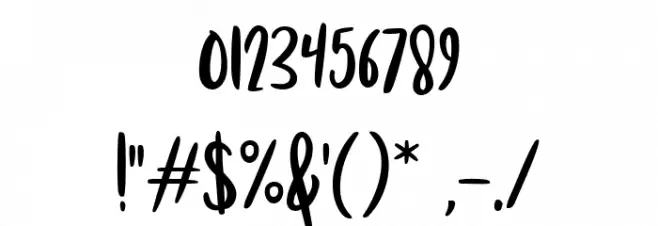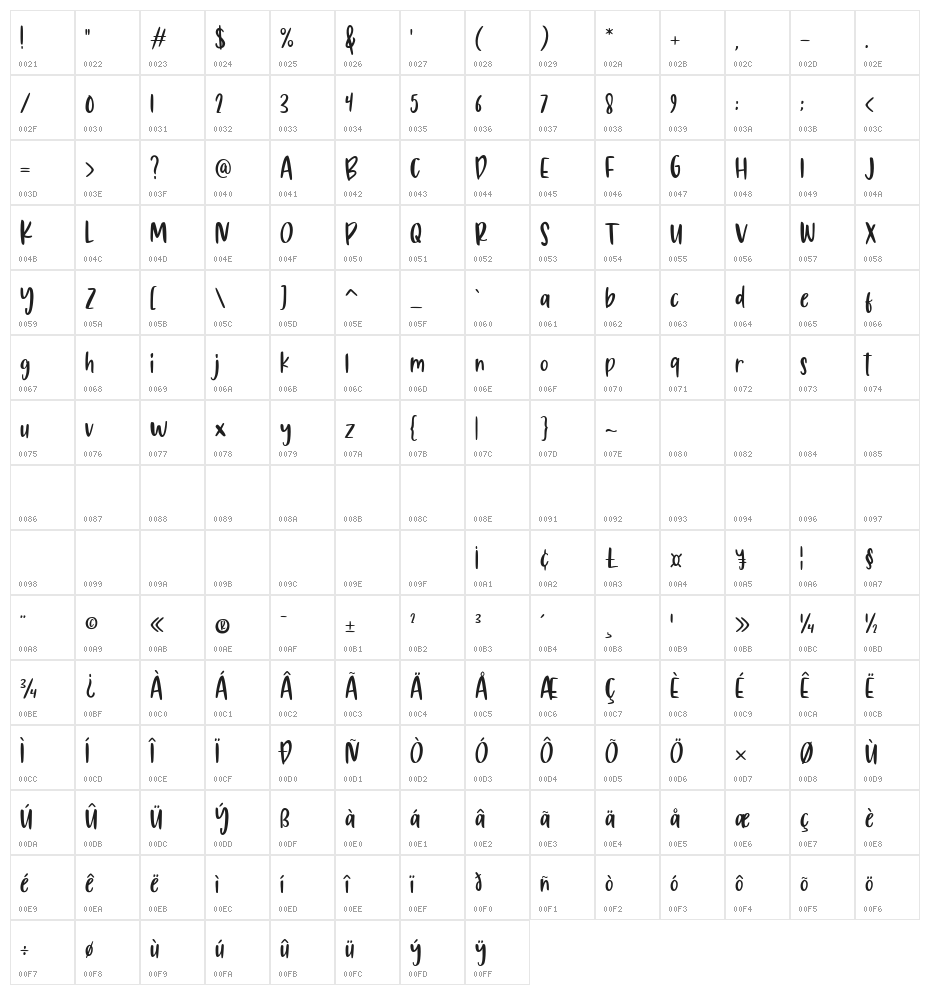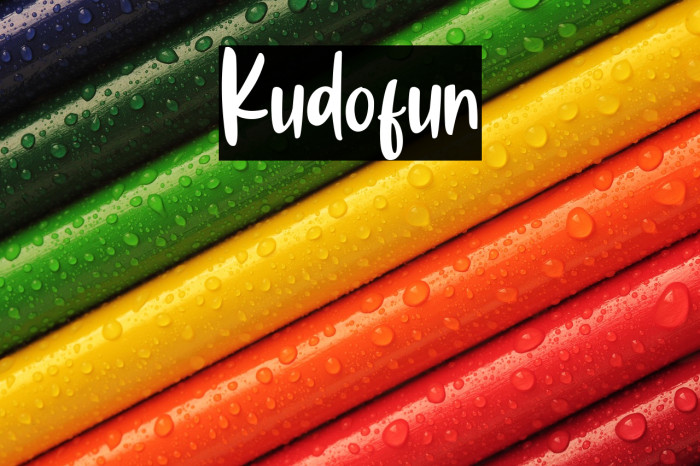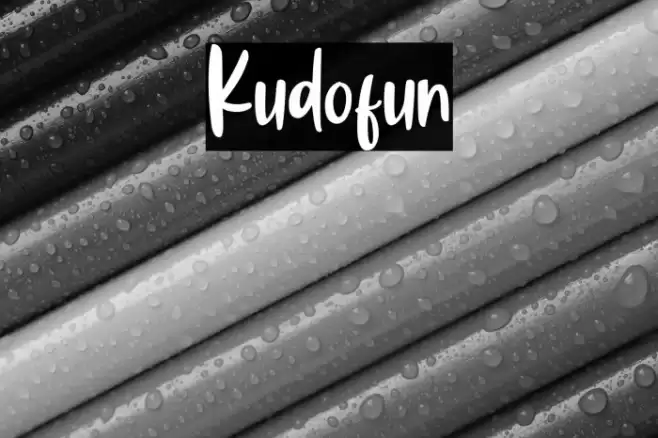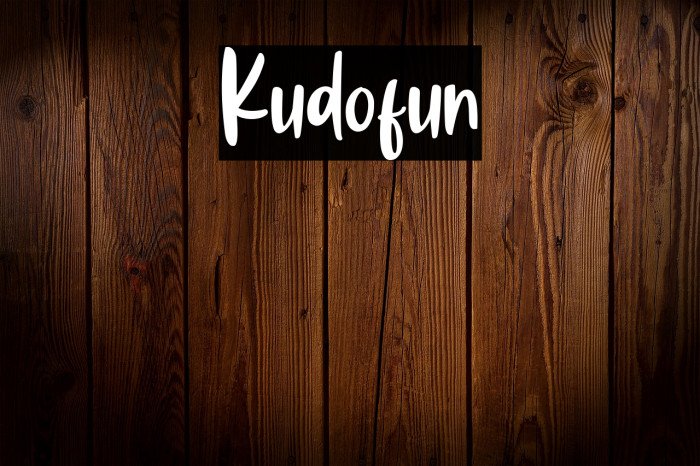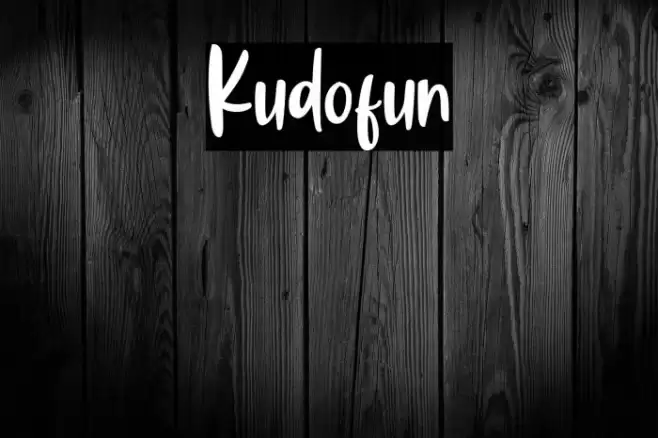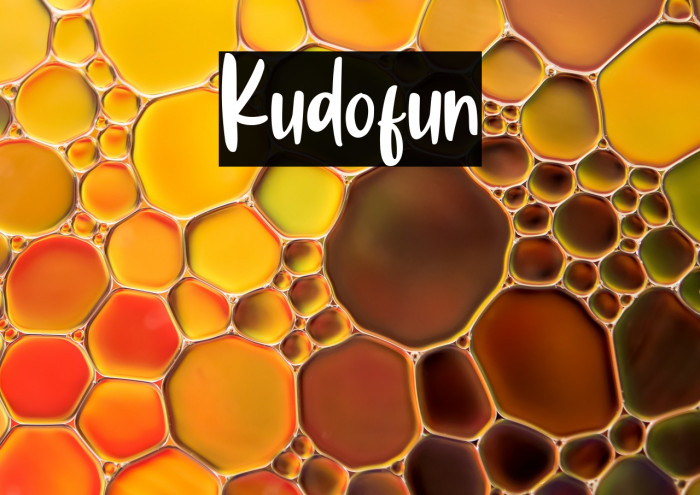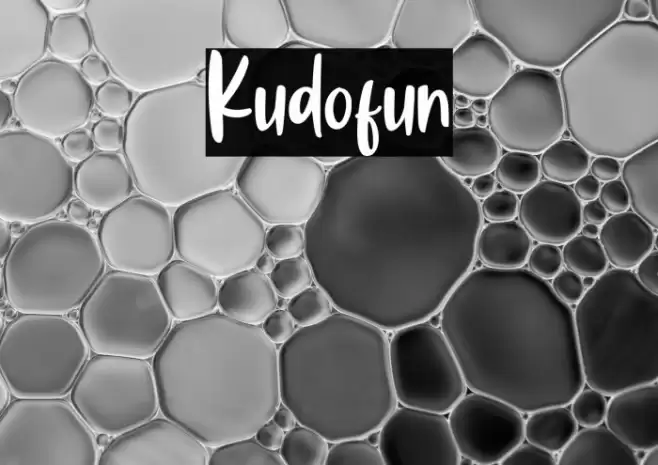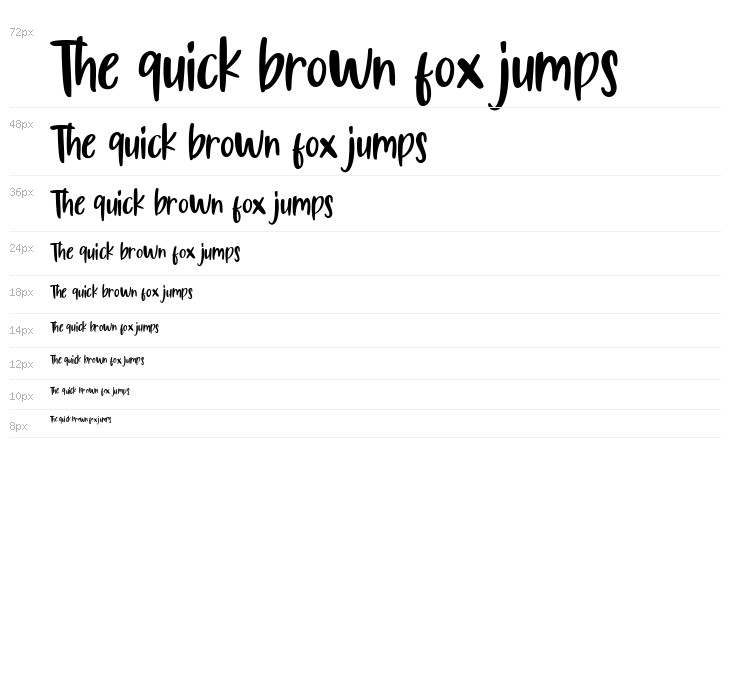
Kudofun Font
Kudofun Description
This playful and energetic font features a handwritten style with smooth, flowing curves and a casual, friendly appearance. The letters are slightly slanted, giving a dynamic and lively feel. The uppercase and lowercase letters maintain a consistent style, with rounded edges and a uniform stroke width that adds to its approachable look. The numerals and special characters are designed to match the overall aesthetic, ensuring a cohesive appearance across all text. This font is perfect for projects that require a personal touch or a fun, informal vibe.
| Proposed Projects | Ideal for greeting cards, social media graphics, children's books, and playful branding. |